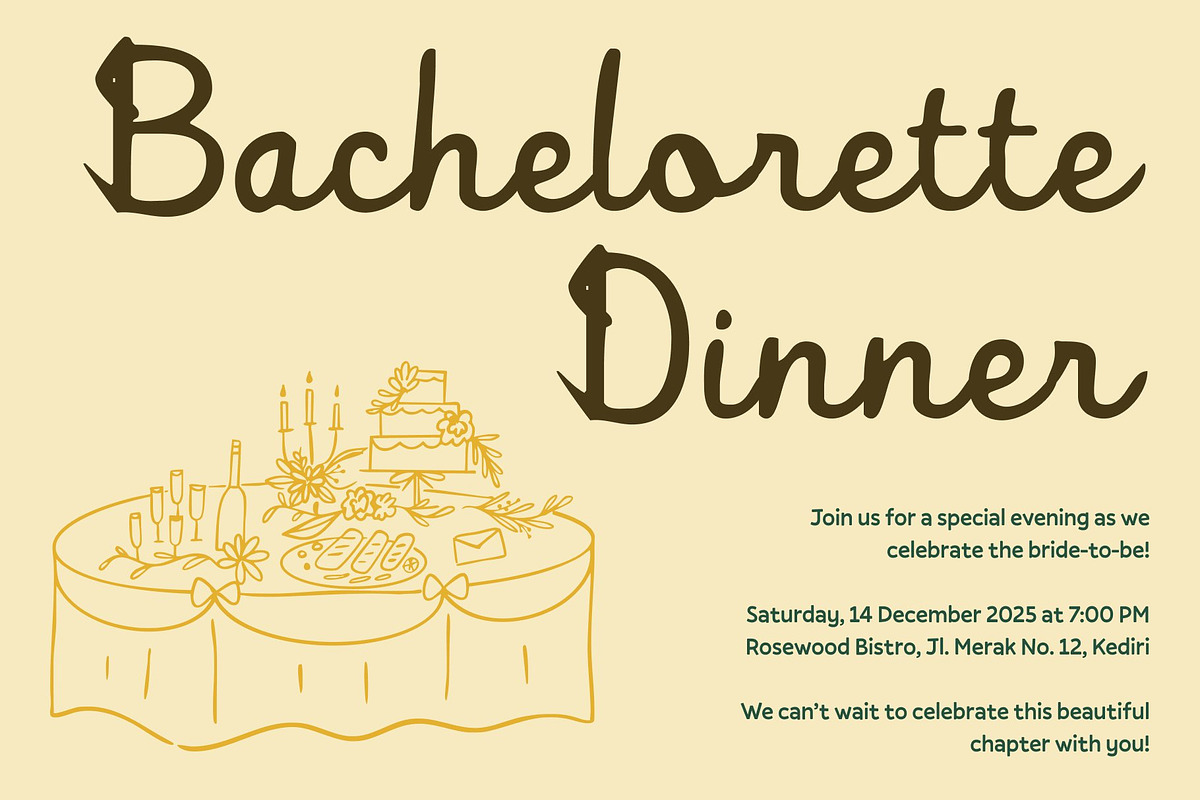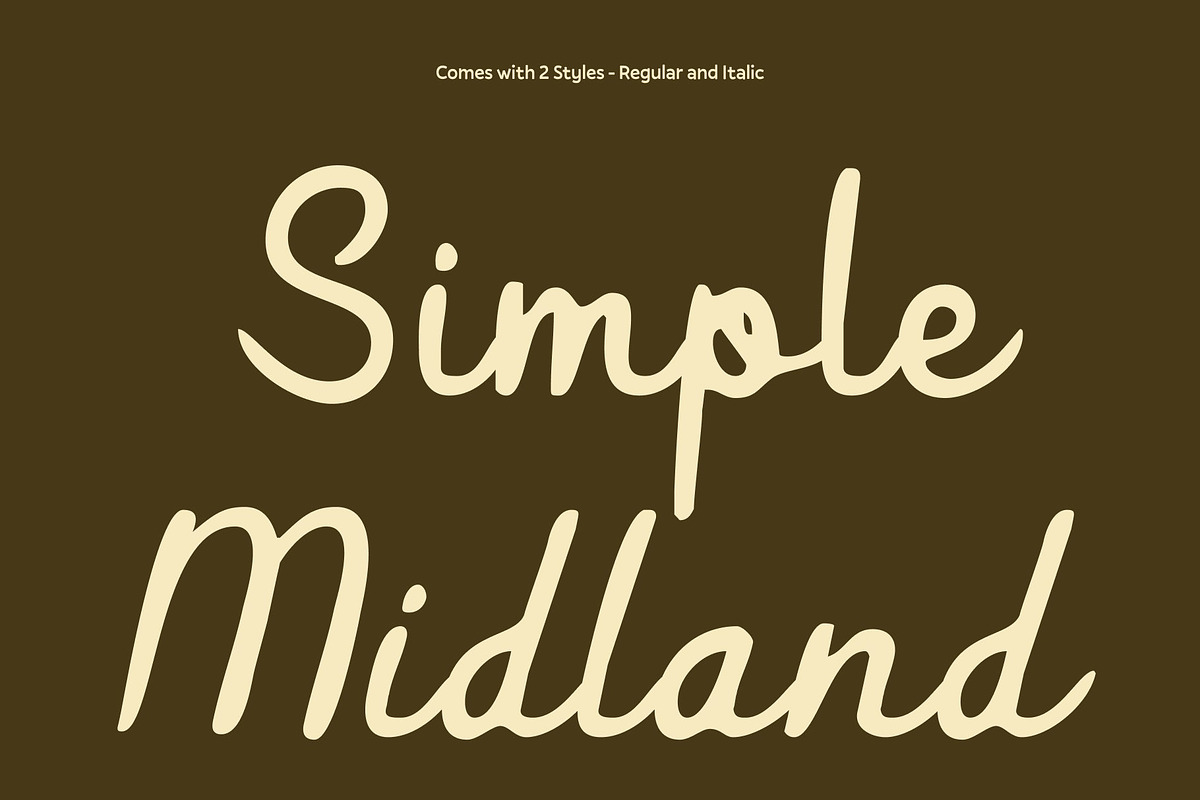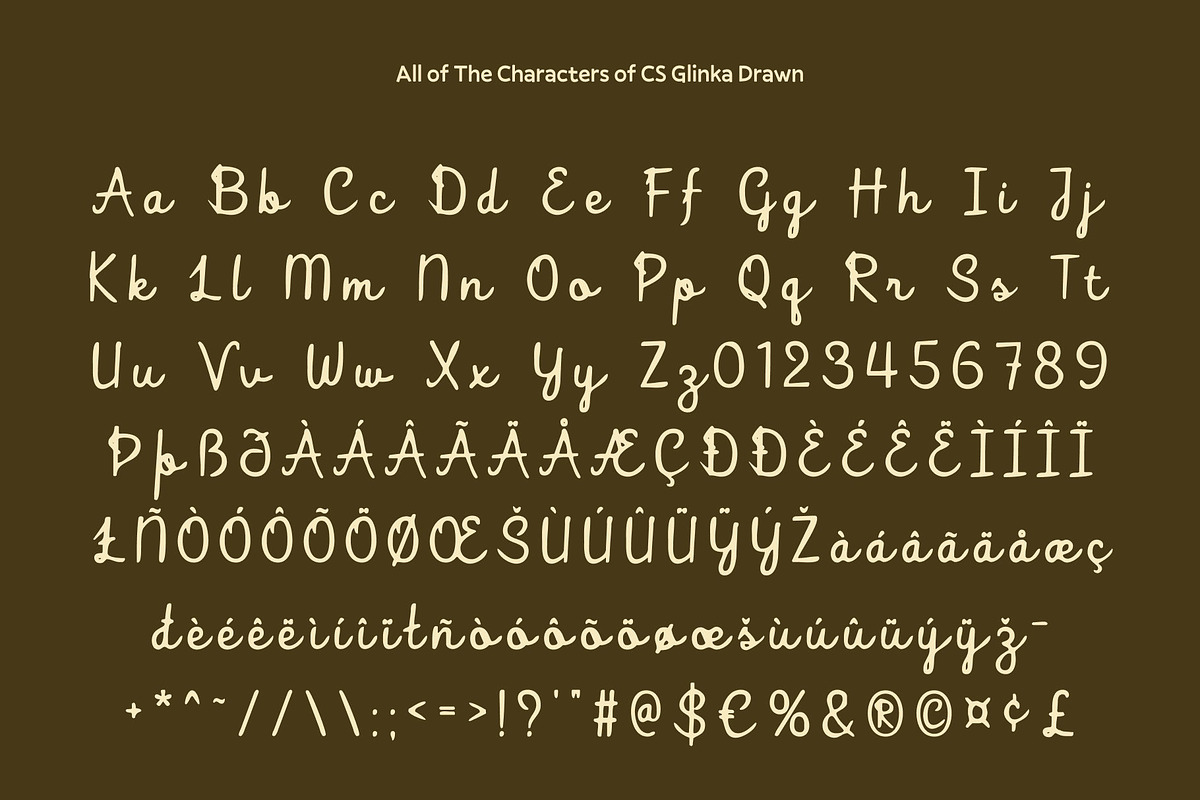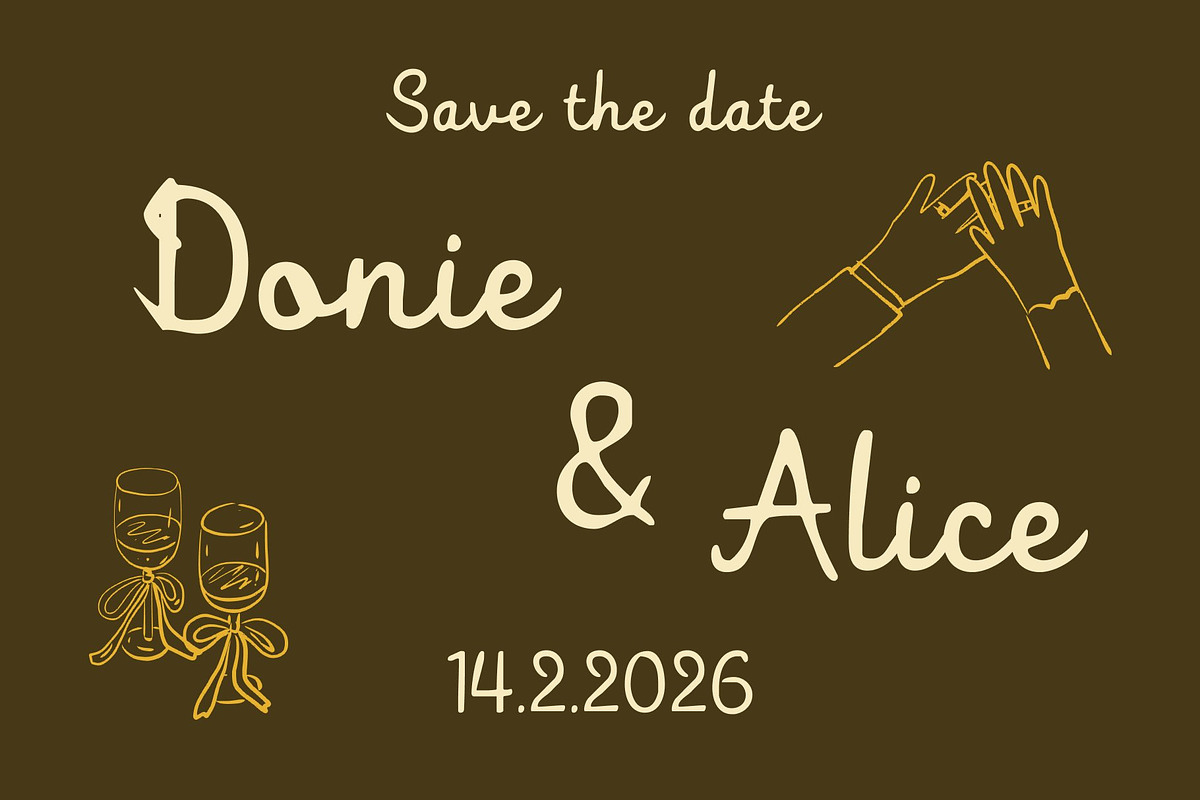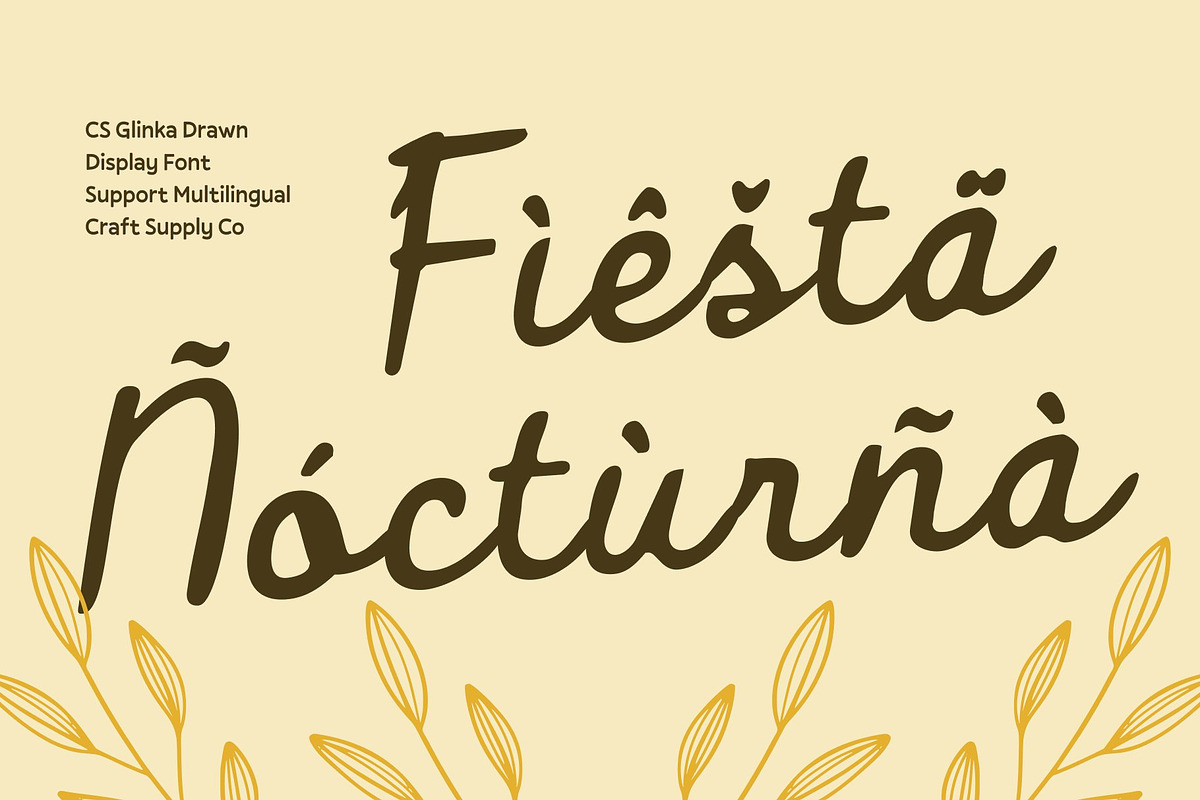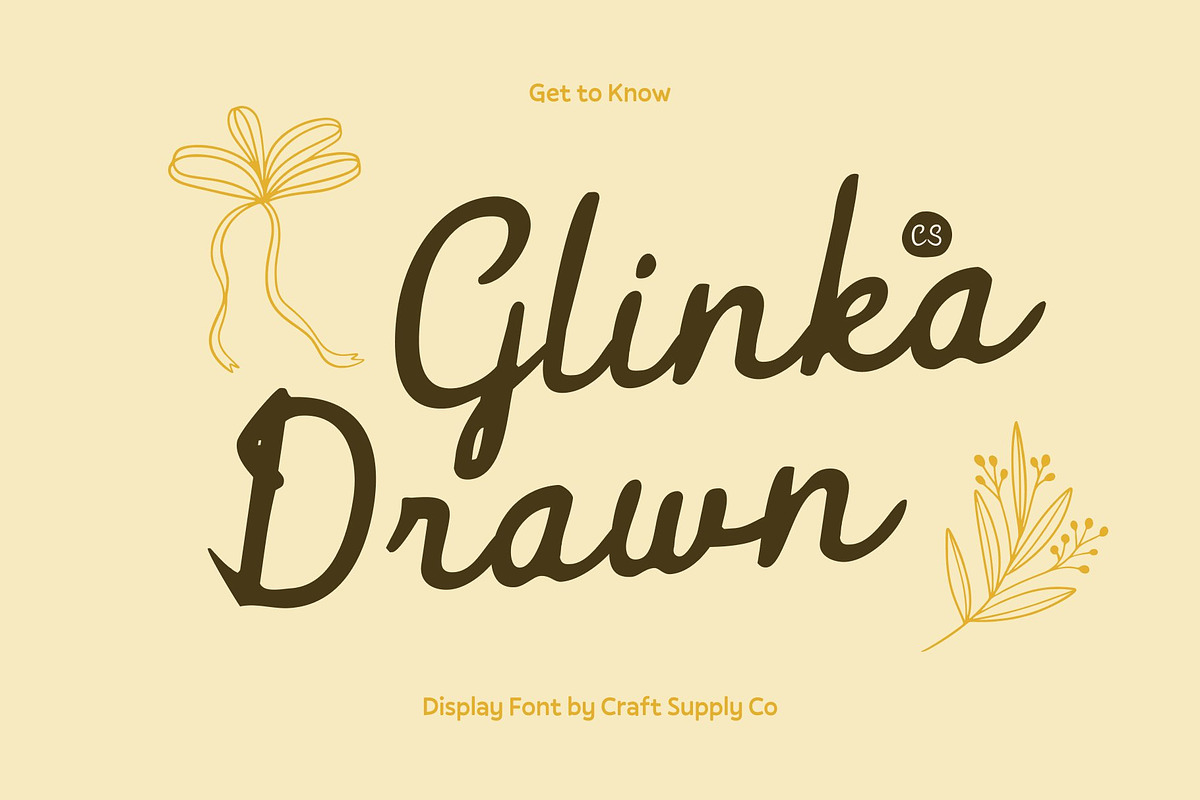
CS Glinka Drawn
CS Glinka Drawn – A Refined and Graceful Script Font
Modern Elegance with a Feminine Touch This is a modern script font that embraces a clean, minimalist aesthetic with a soft feminine sensibility. Flowing cursive strokes and gentle curves create a graceful rhythm, while the drawn effect introduces subtle handcrafted details that make each letter feel personal, warm, and naturally expressive. The result is an elegant script that feels both contemporary and timeless.
Soft, Sophisticated, and Captivating With its smooth structure and balanced proportions, conveys confidence through delicacy. The handwritten nuances add charm and emotional depth without sacrificing clarity, making the font visually appealing and easy to read. It captures modern femininity in a refined, understated way sophisticated, calm, and inviting.
Perfect for Beauty and Lifestyle Design This is ideal for beauty branding, fashion labels, luxury invitations, lifestyle content, and social media graphics. Its graceful flow enhances visual storytelling, adding softness and elegance to designs that aim to feel premium, romantic, and stylish.
A Script Font that Elevates with Simplicity Designed for creatives who value subtle elegance, delivers a polished script style with artistic character. It’s perfect for projects that require modern beauty, emotional warmth, and a refined handwritten touch that leaves a lasting impression.